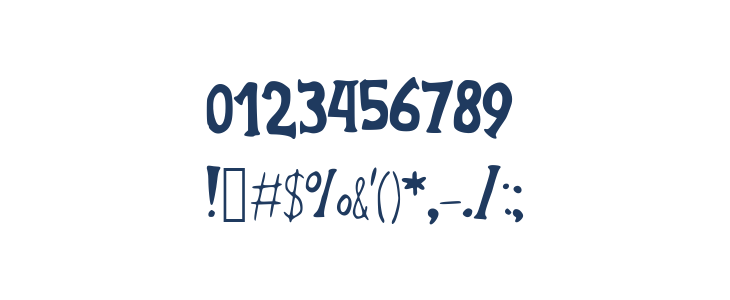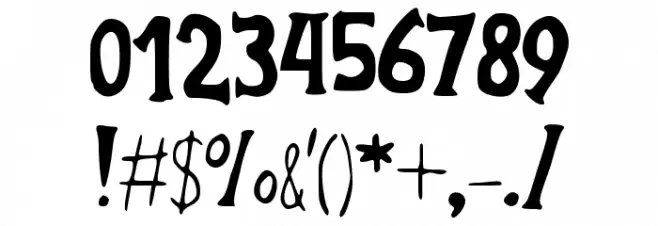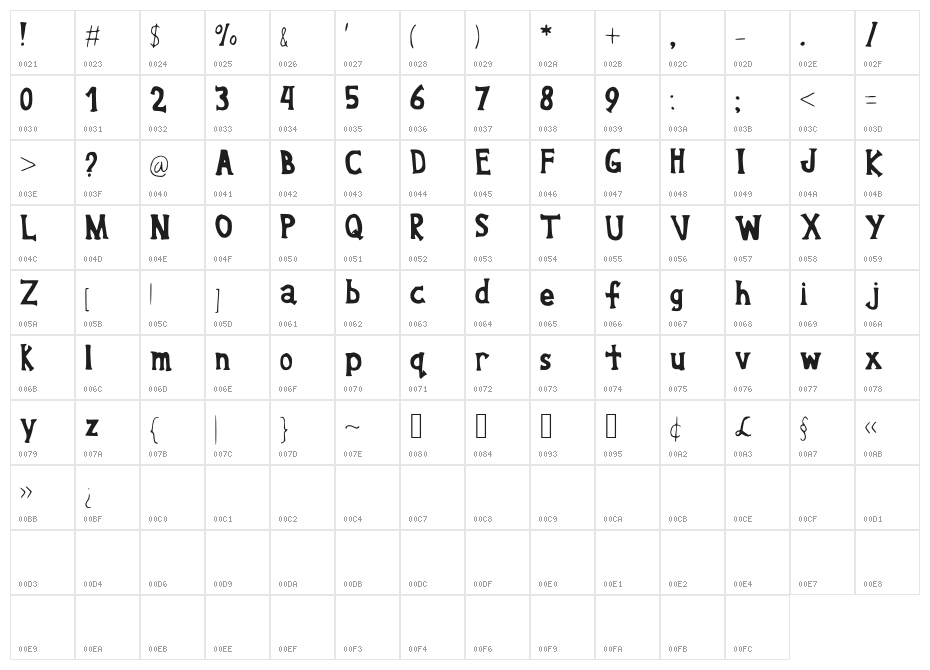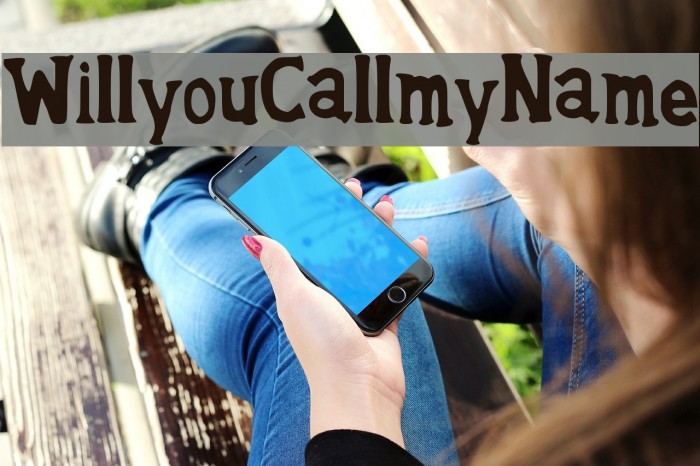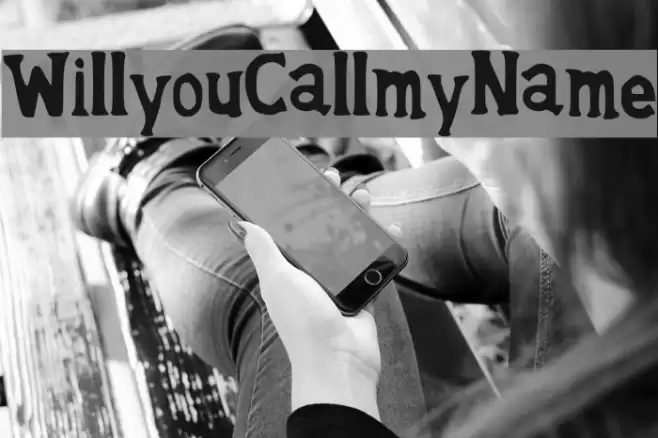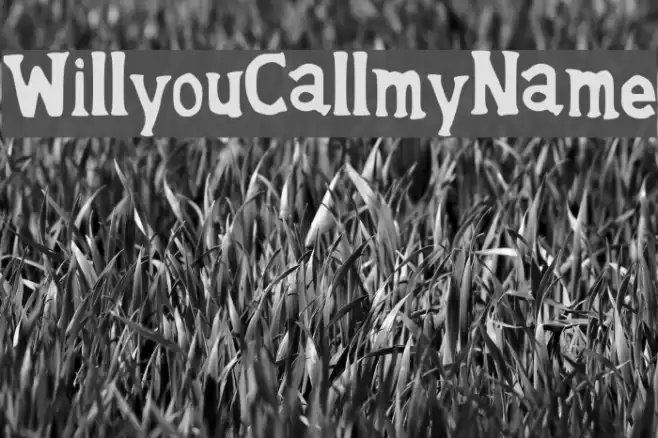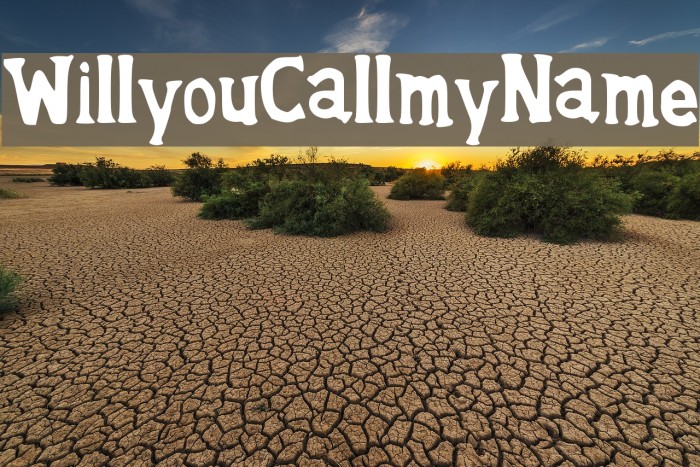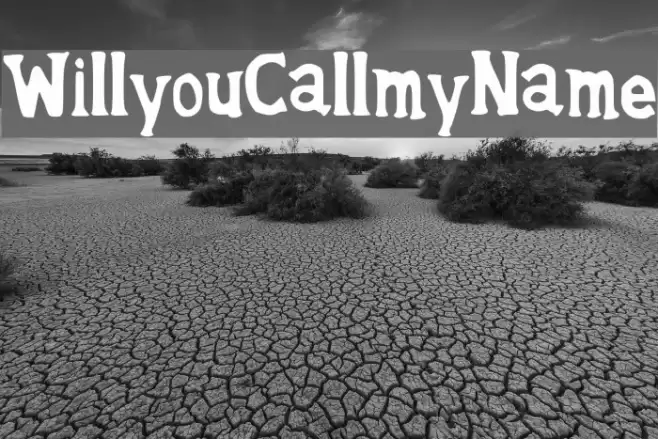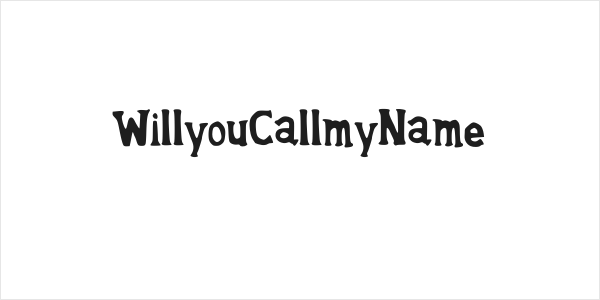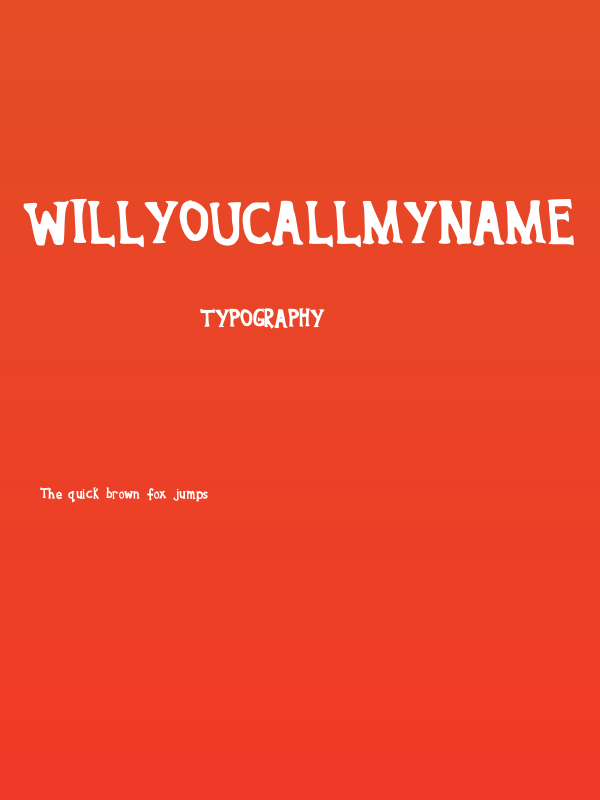
WillyouCallmyName Font
WillyouCallmyName Description
This font features a playful and quirky design with irregular, hand-drawn strokes that give it a whimsical and artistic feel. The characters are bold and slightly uneven, adding to the casual and informal aesthetic. The uppercase and lowercase letters maintain a consistent style, with exaggerated curves and varying line thicknesses that create a dynamic and lively appearance. The numbers and special characters follow the same design principles, ensuring a cohesive look across all glyphs. This font is ideal for projects that require a fun and engaging visual impact.
| Proposed Projects | Great for children's books, greeting cards, playful branding, and creative posters. |